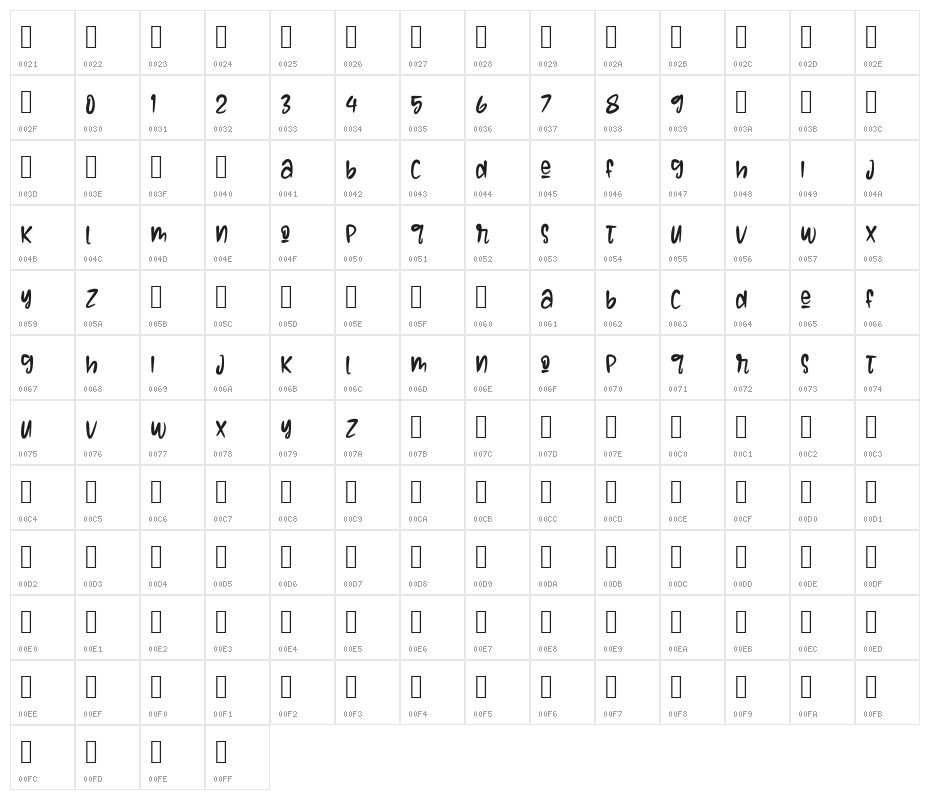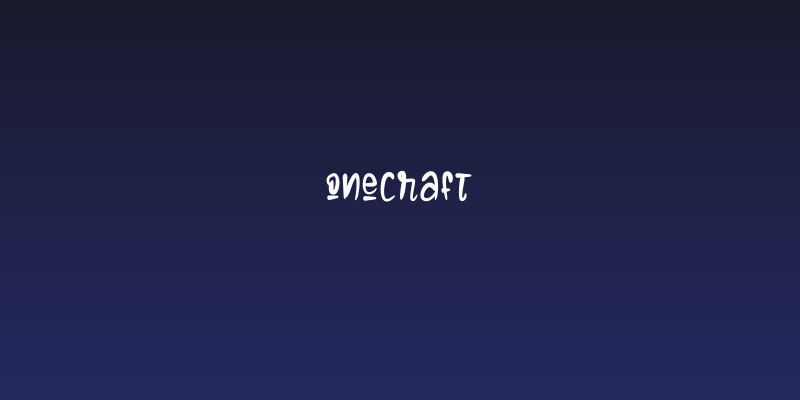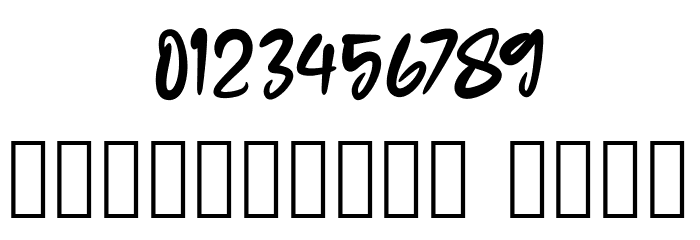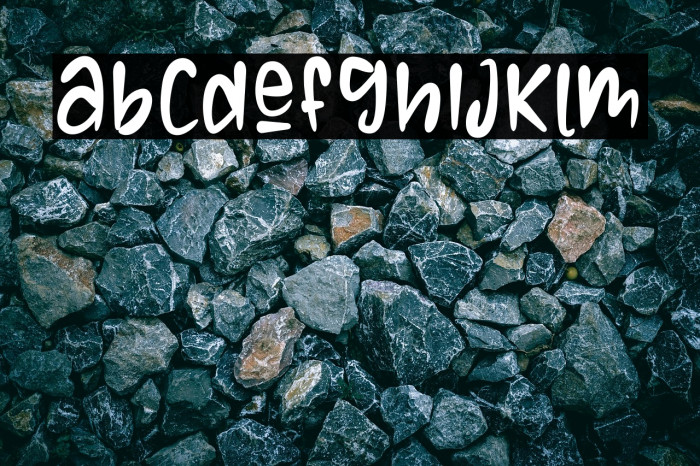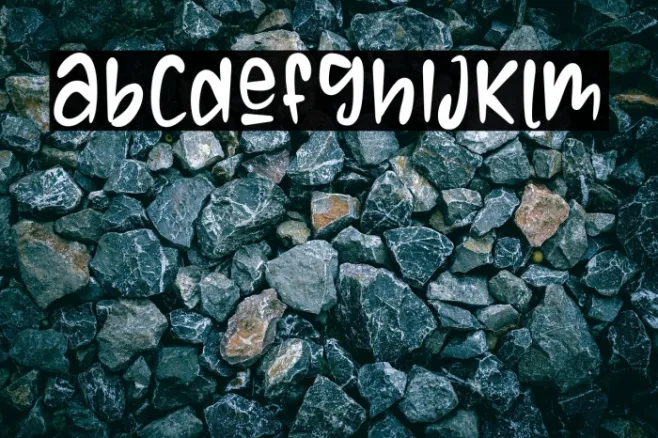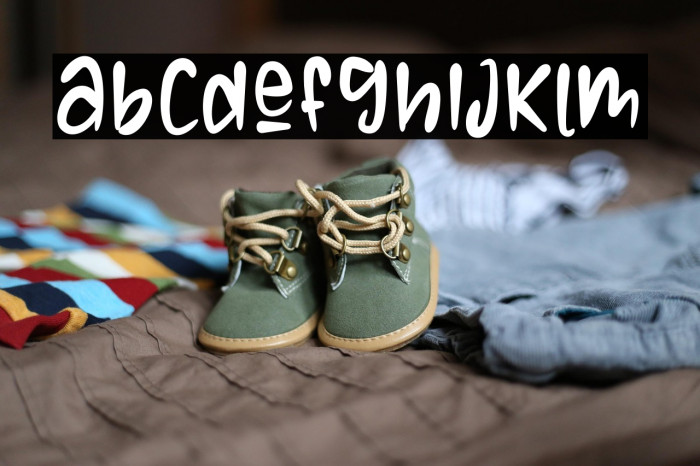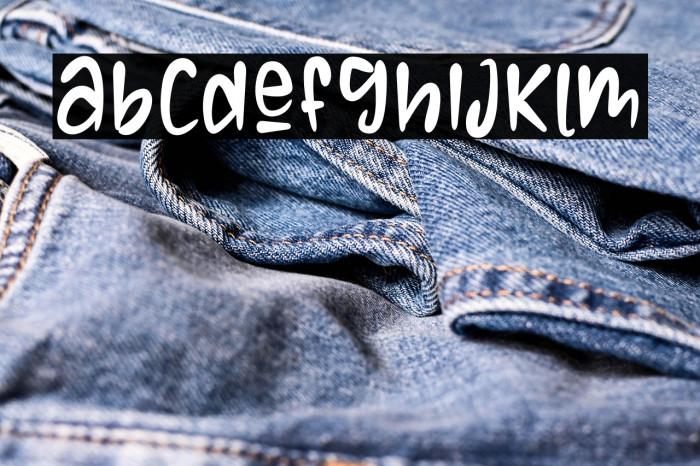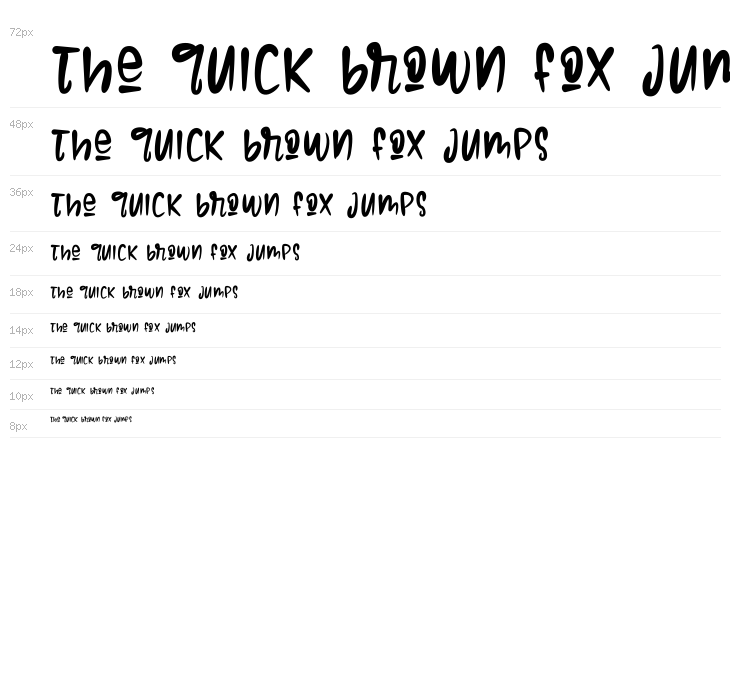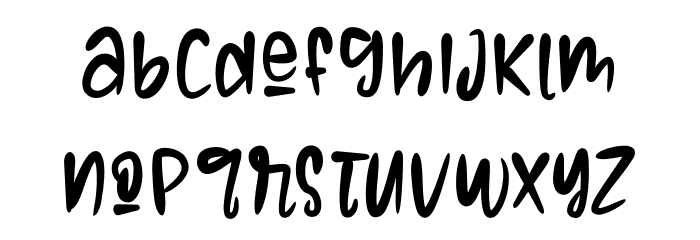
ONECRAFT Font
ONECRAFT Description
This font features a playful and energetic handwritten style, characterized by its bold and rounded letterforms. The strokes are smooth and fluid, giving it a casual yet dynamic appearance. The uppercase and lowercase letters maintain a consistent style, with a slight slant that adds to its informal charm. The numbers and special characters are equally expressive, making it suitable for creative and lively designs. Its overall aesthetic is friendly and approachable, making it ideal for projects that require a personal touch.
| Proposed Projects | Ideal for greeting cards, children's books, playful branding, and social media graphics. |